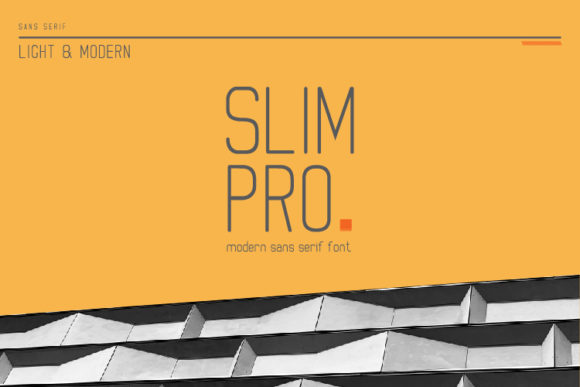
Unleash the power of elegance and sophistication with Slim Pro Font, the quintessential sans serif font meticulously crafted by WAP. Its sleek lines and refined curves exude a timeless charm that will elevate your designs to new heights. Whether you're crafting striking logos, captivating headlines, or alluring presentations, Slim Pro Font seamlessly adapts, transforming your creations into masterpieces.
Immerse yourself in the versatility of Slim Pro Font, a font that effortlessly complements any theme or concept. Its ability to effortlessly blend with diverse design aesthetics makes it an indispensable tool for designers and creatives seeking to make a lasting impact. From whimsical invitations to sleek brochures, Slim Pro Font effortlessly weaves its magic, adding a touch of refined elegance to every project.
Experience the joy of effortless expression with Slim Pro Font, a font designed to empower your creativity. Its intuitive design allows even novice designers to achieve professional-grade results, making it the perfect font for personal and commercial projects alike. Whether you're a seasoned pro or just starting your design journey, Slim Pro Font will guide you towards creating captivating designs that will leave a lasting impression.
Indulge in the world of lettering with Slim Pro Font, a font that captures the essence of artistry. Its carefully crafted curves and subtle nuances lend themselves perfectly to creating beautiful hand-lettered designs that evoke a sense of warmth and authenticity. Personalize your correspondence, create stunning quotes, or design enchanting artwork that reflects your unique style.